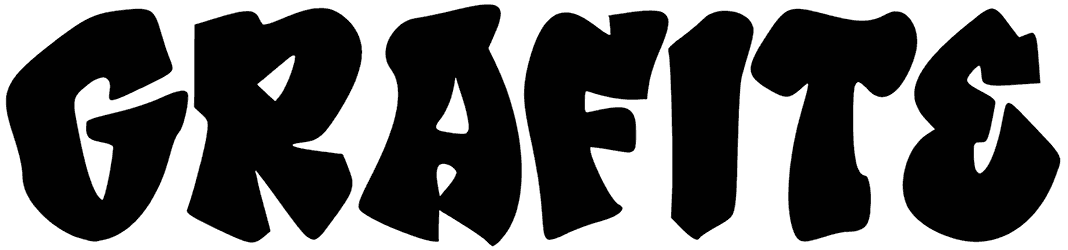
Grafite Font
It’s time to try something unique and make an urban look by utilizing a graffiti font. Grafite with chunky letters comes smoothly for use in many different kinds of projects, as a case in point: street art signs, album covers, painting on walls, etc.
Bear in mind that it doesn’t include lowercase letters. So, can we consider RB’s preference for fonts the excellent invention so far, or what? Needs more? RB is always at your service.
GRAFITE